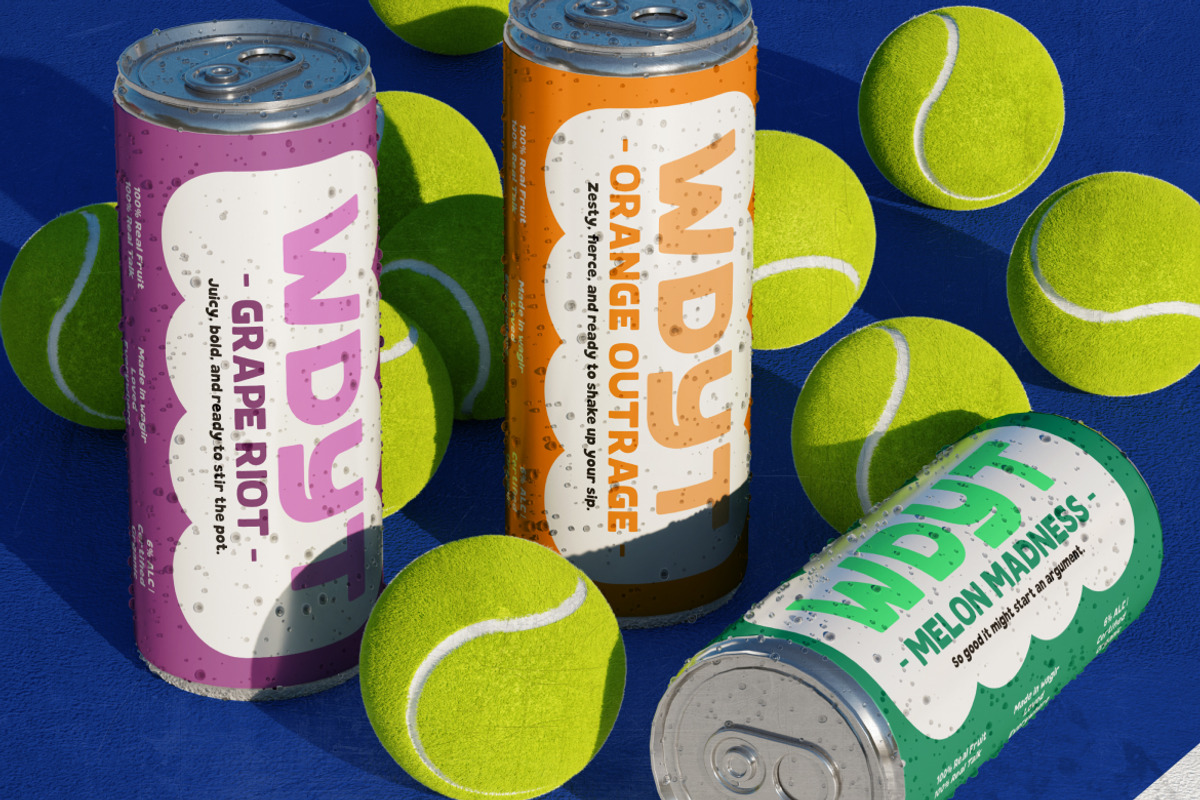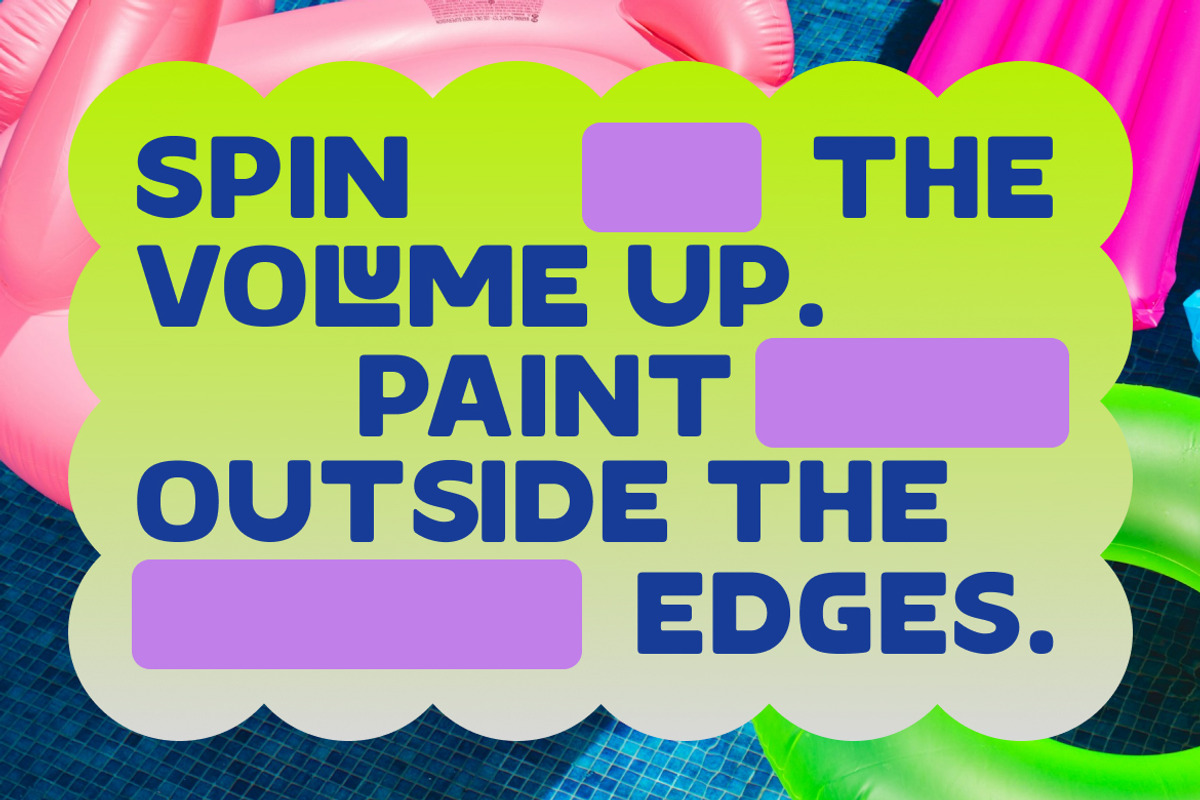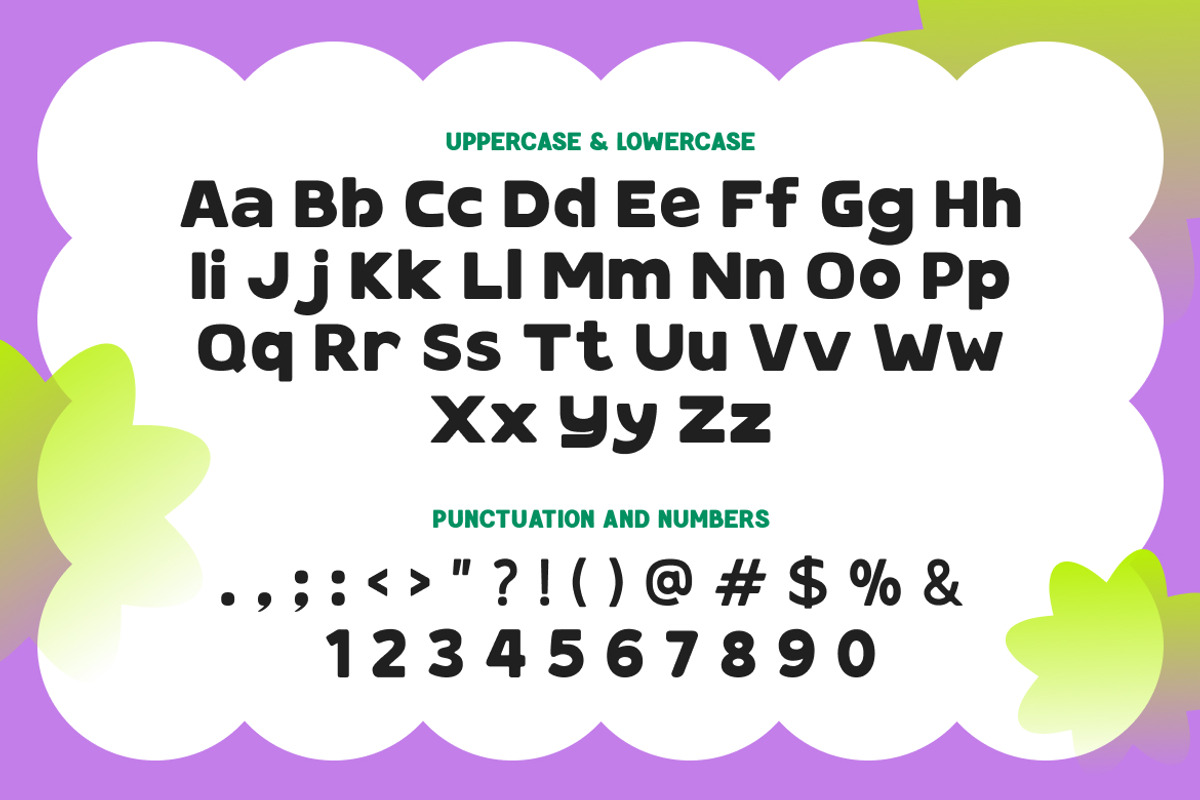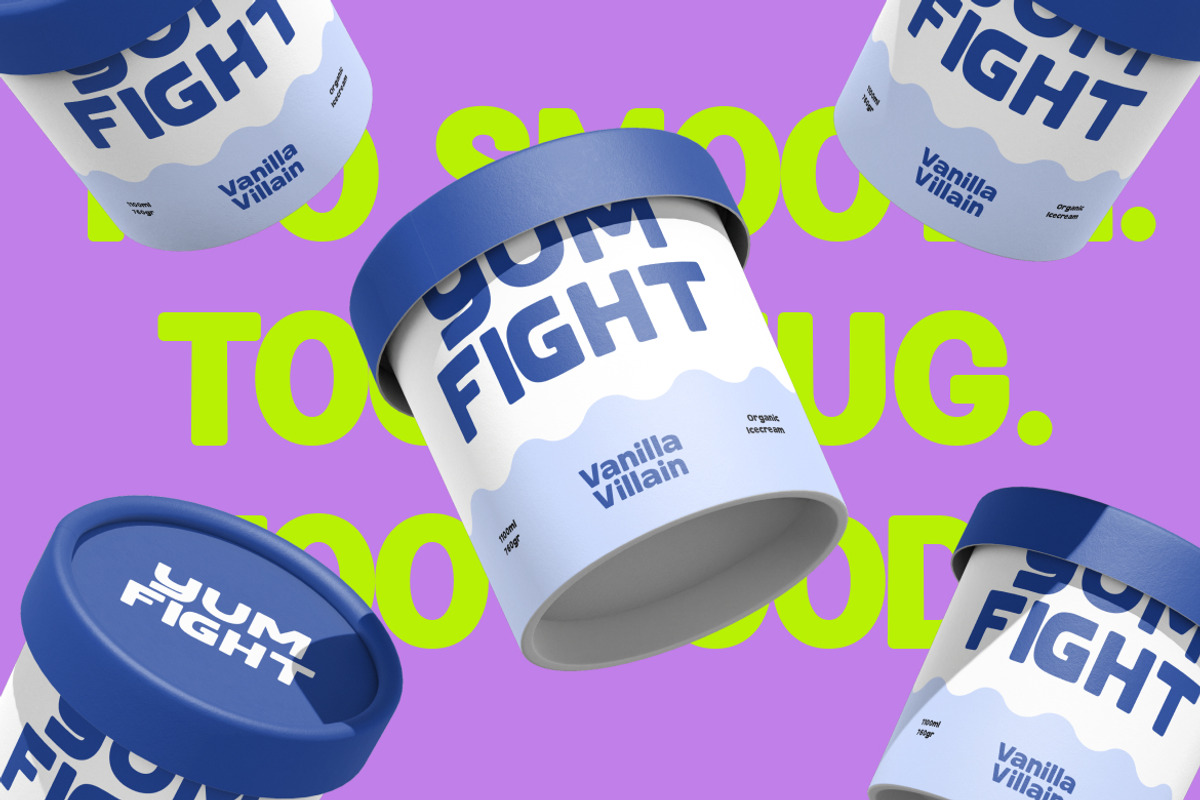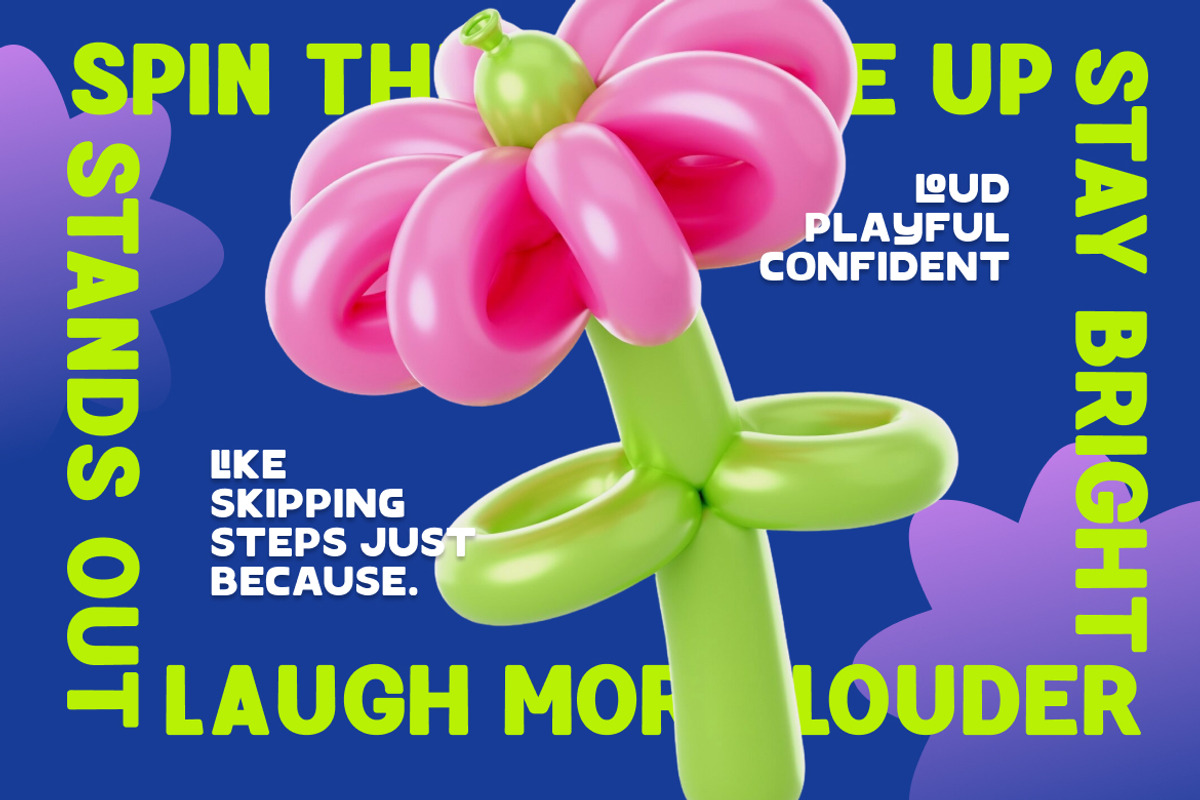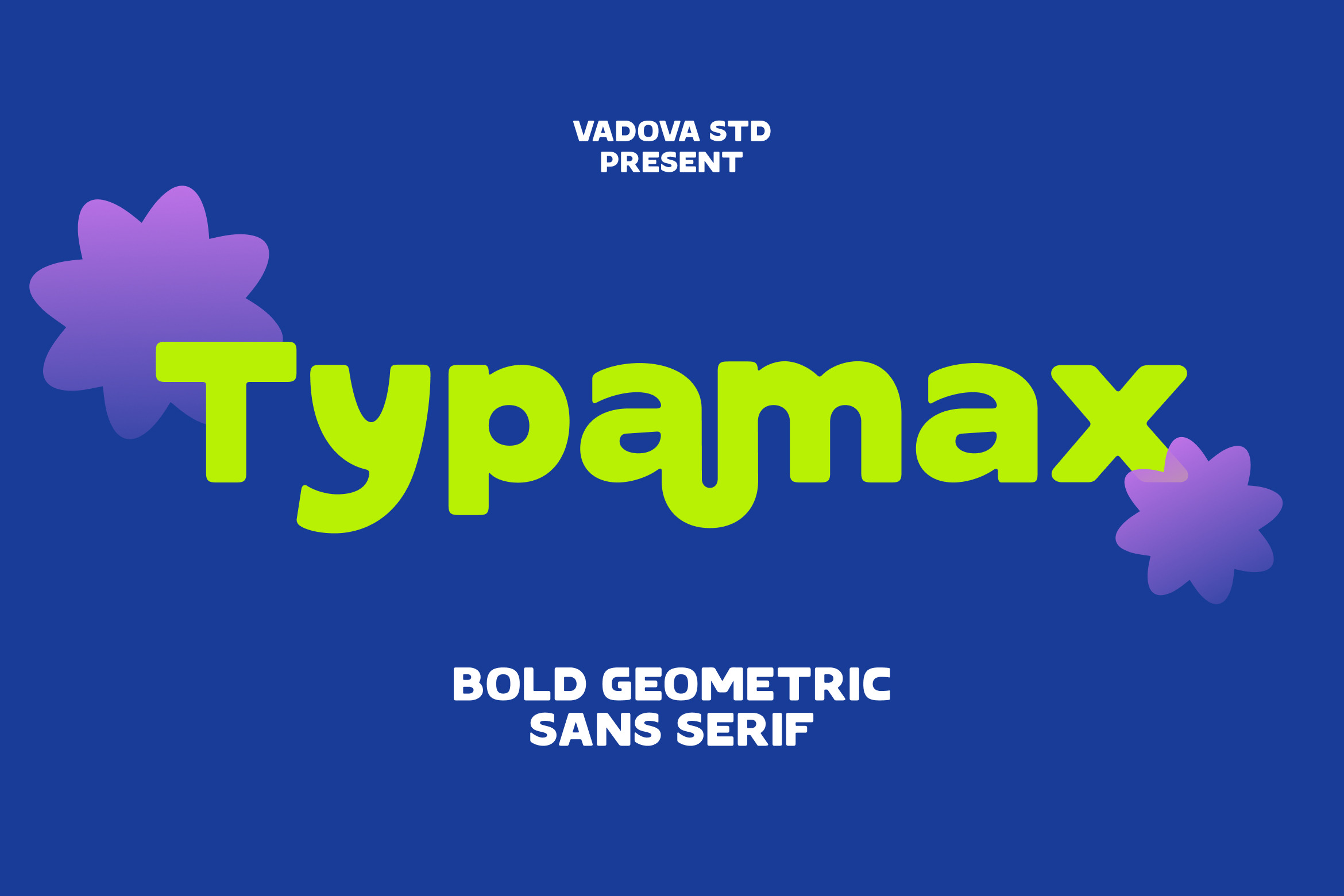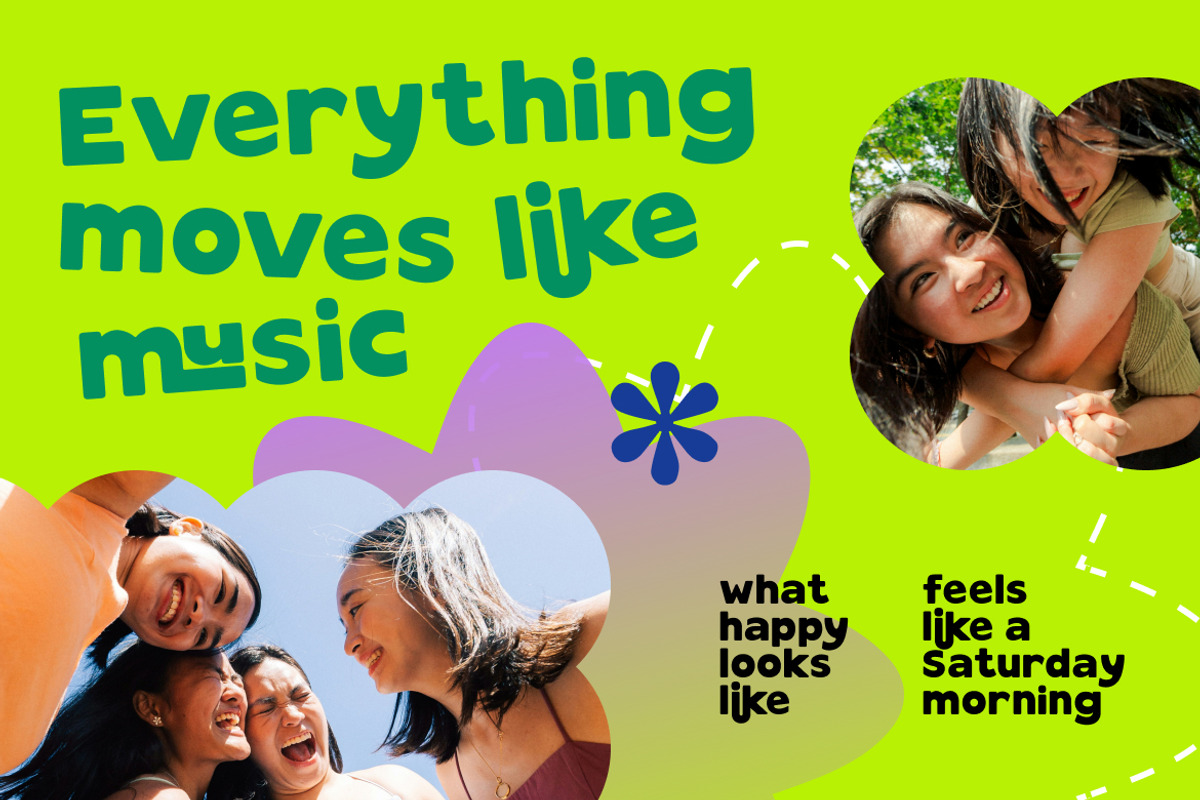
Typamax Geometric Sans Serif Font
Typamax is a bold geometric sans serif font crafted to deliver clarity, confidence, and fun in every letter. This typeface features thick, rounded letterforms with playful curves and smooth terminals, making it perfect for standout headlines and dynamic design layouts. Typamax includes a full set of uppercase and lowercase characters, punctuation, and numerals. Its simplicity and boldness make it extremely versatile across digital and print applications.
Typamax stands out as a fun, approachable font ideal for use in children's books, tech startups, digital marketing kits, app interfaces, modern product packaging, and youthful brand identities. Its round shapes and energetic style capture attention without overwhelming the design, making it suitable for any project that calls for clarity with personality.
- Bold geometric sans serif structure with a playful tone
- Rounded edges and exaggerated curves for a friendly appearance
- Balanced proportions for high legibility in large sizes
- Unique character shapes with a quirky modern twist
- Perfect contrast and spacing optimized for headers, posters
- Children’s book covers and educational material
- Toy packaging and kid-friendly product branding
- Social media graphics with a fun, bold tone
- Event posters, party invitations, or playful headlines
- Apps, websites, or games targeting younger audiences
Power up your visuals with Typamax a bold geometric sans serif that speaks with fun and clarity